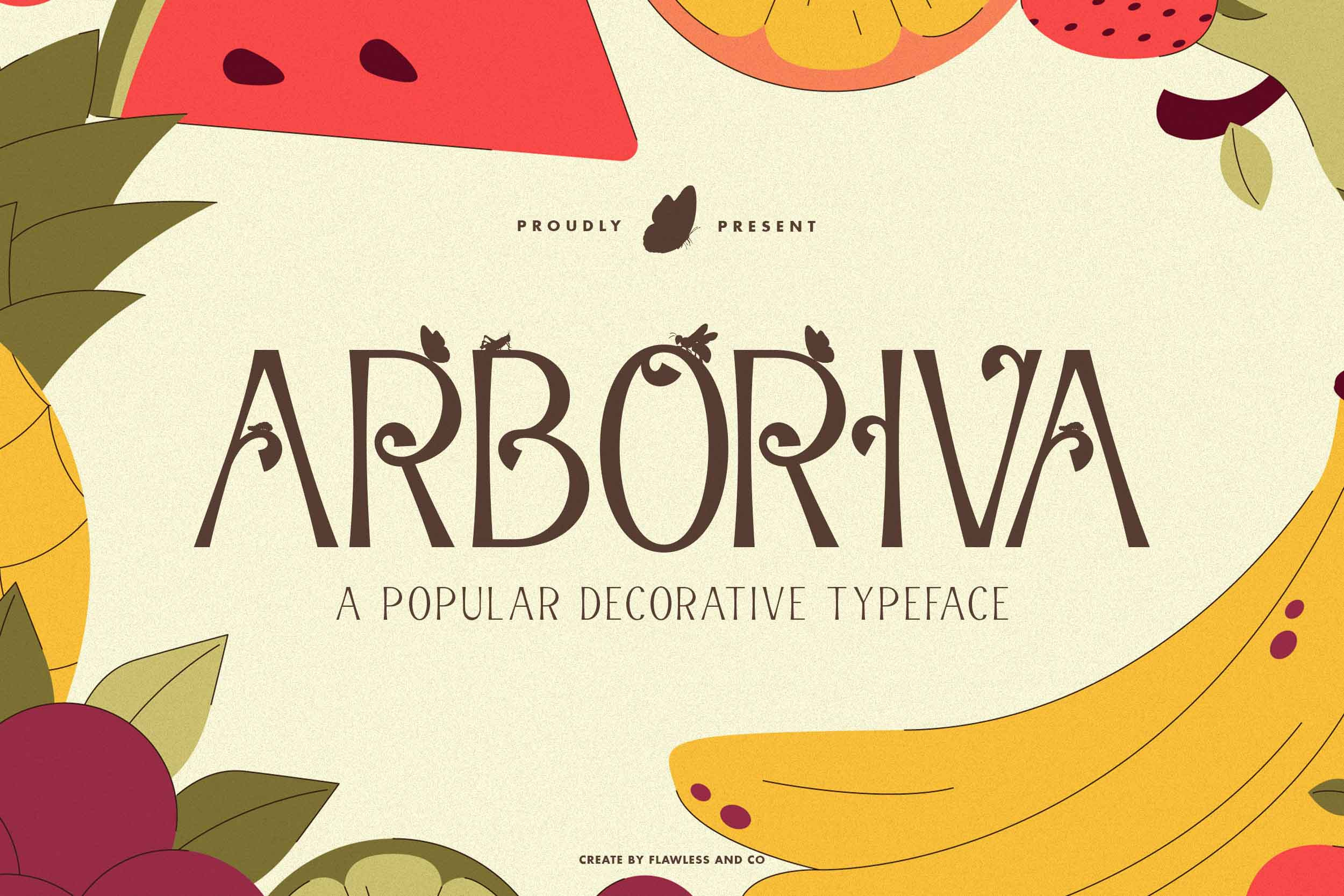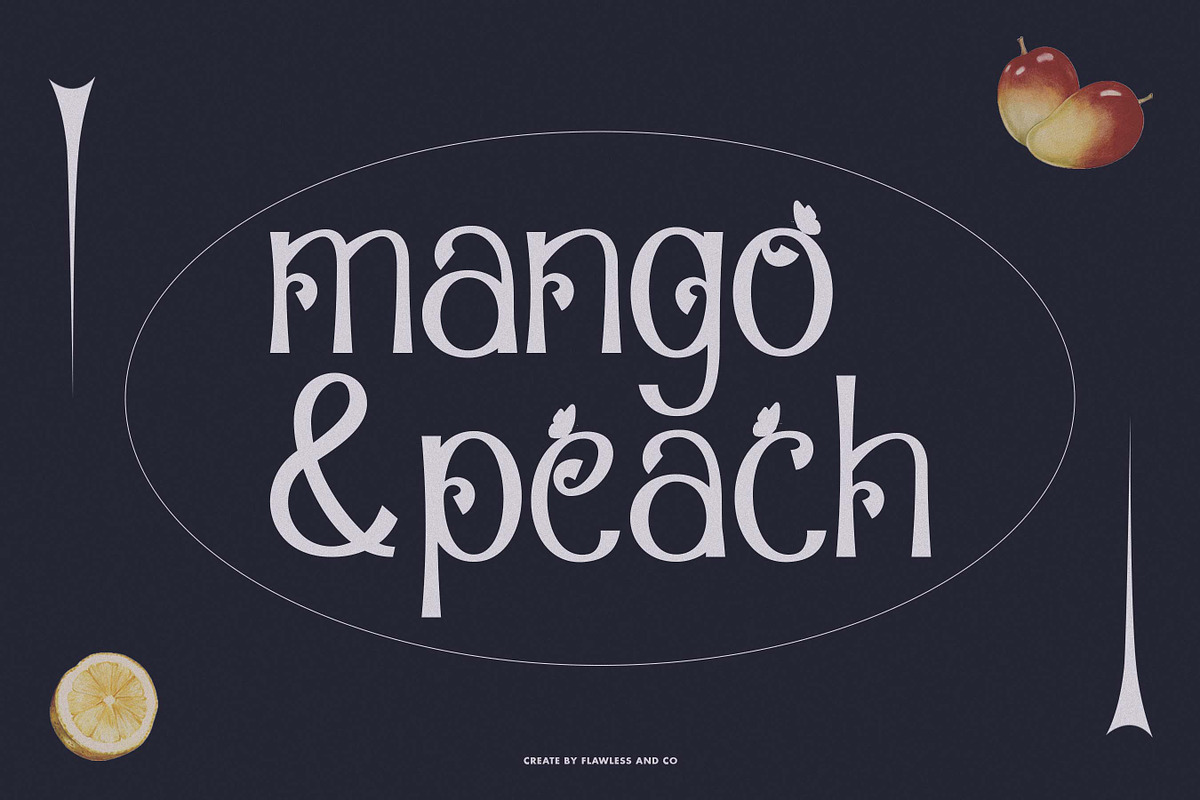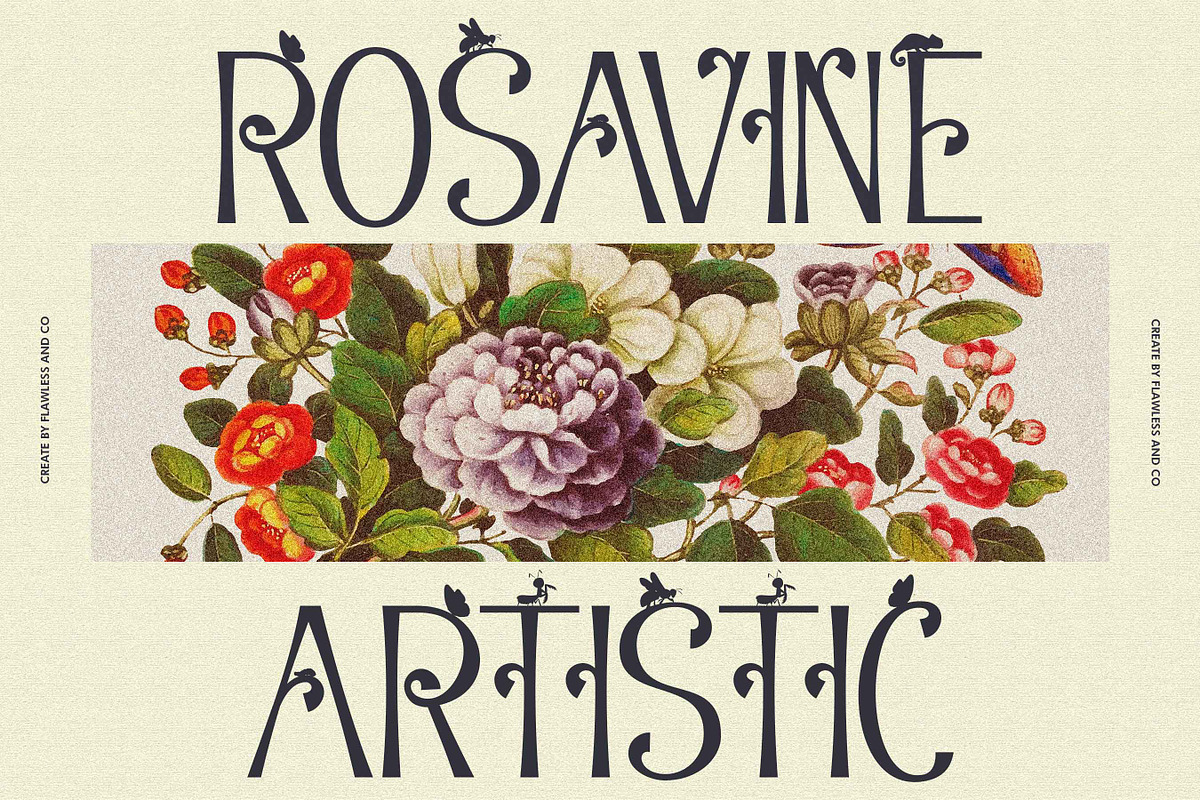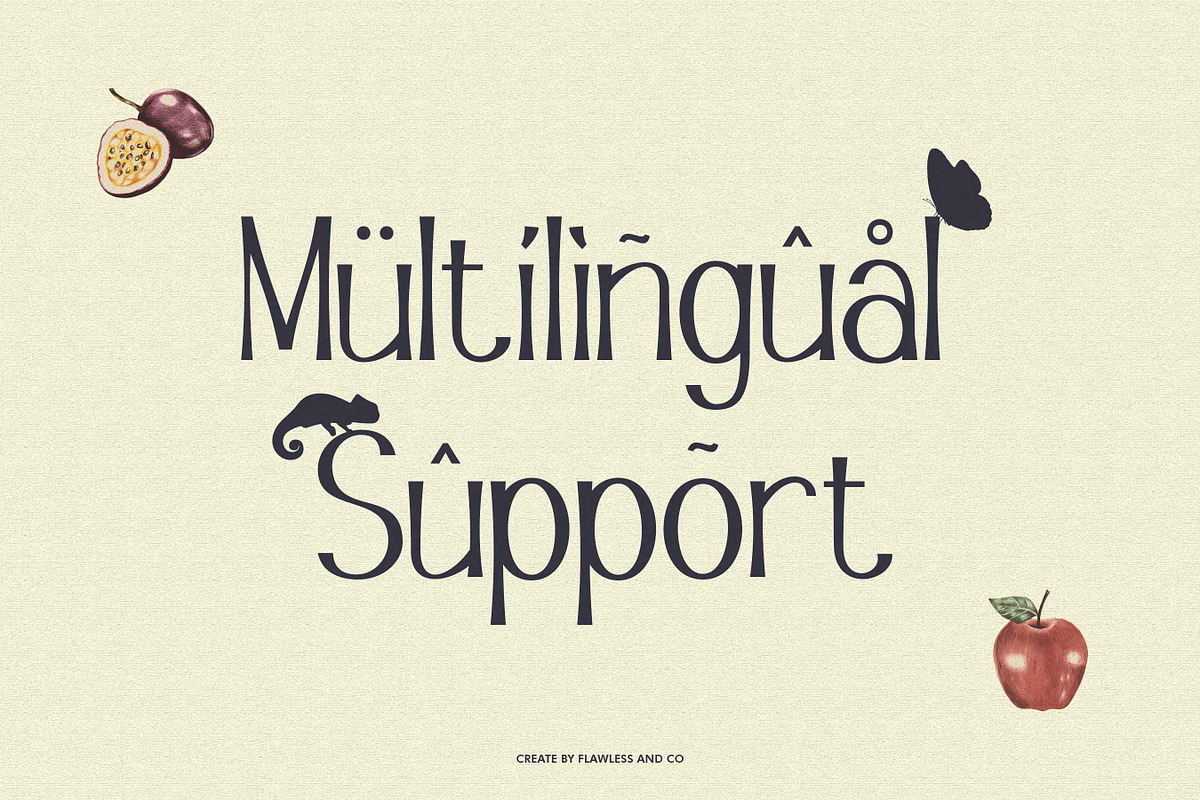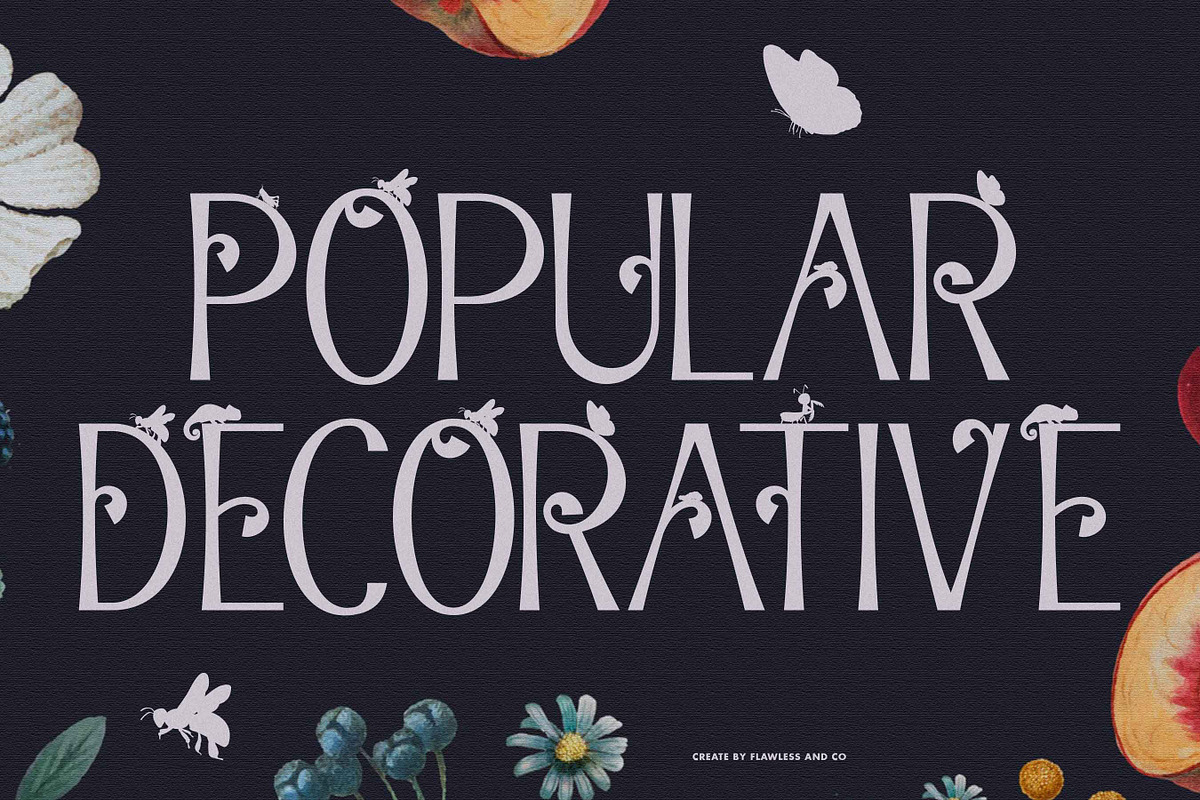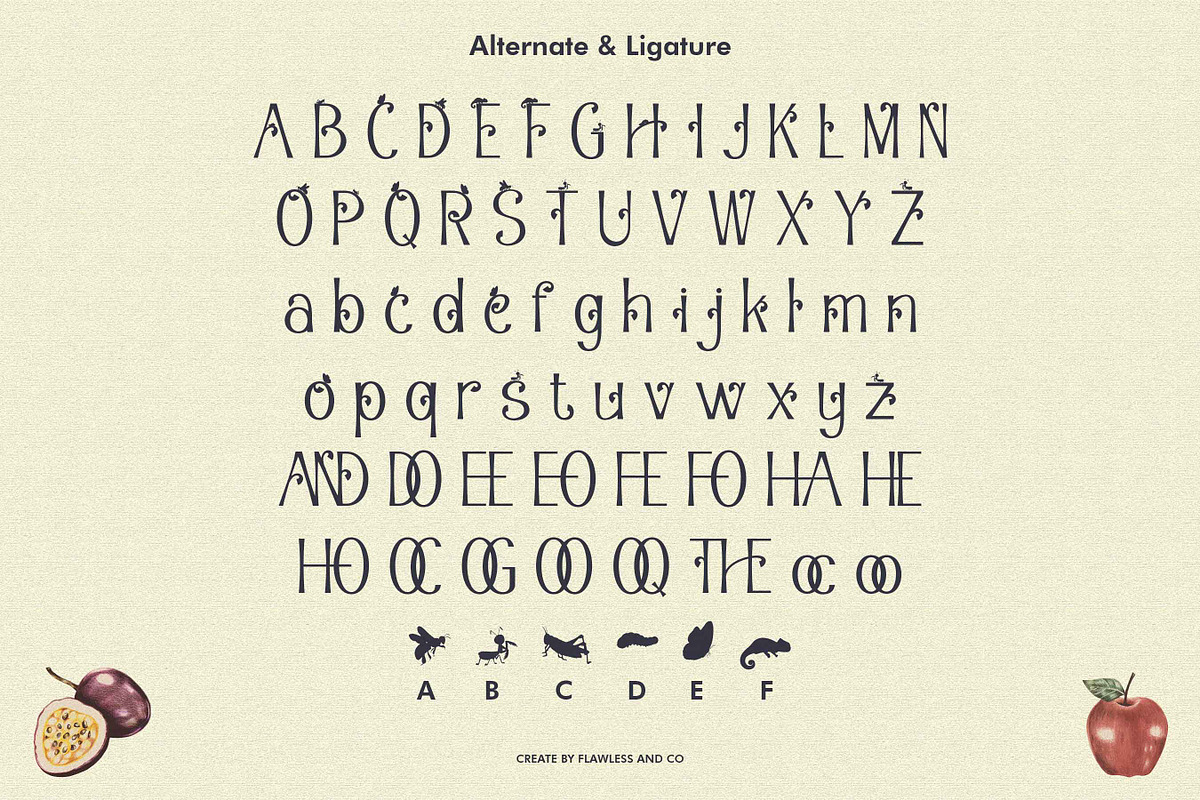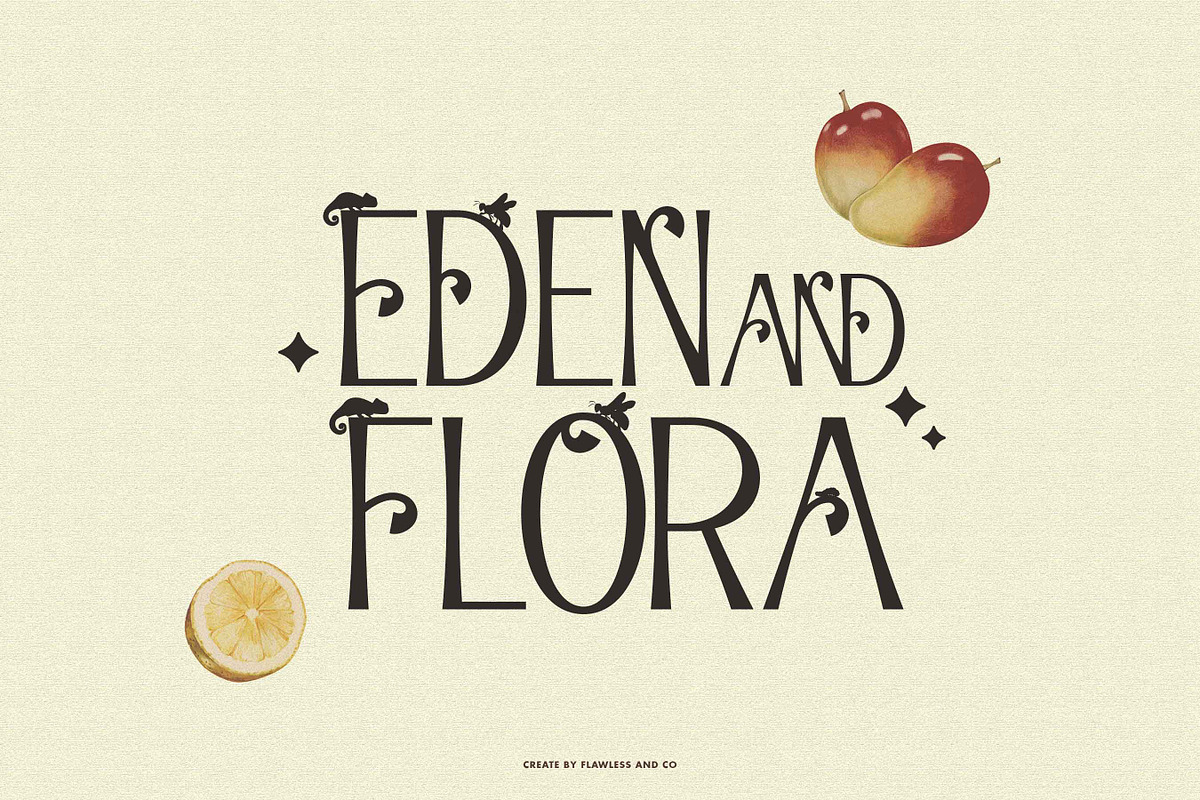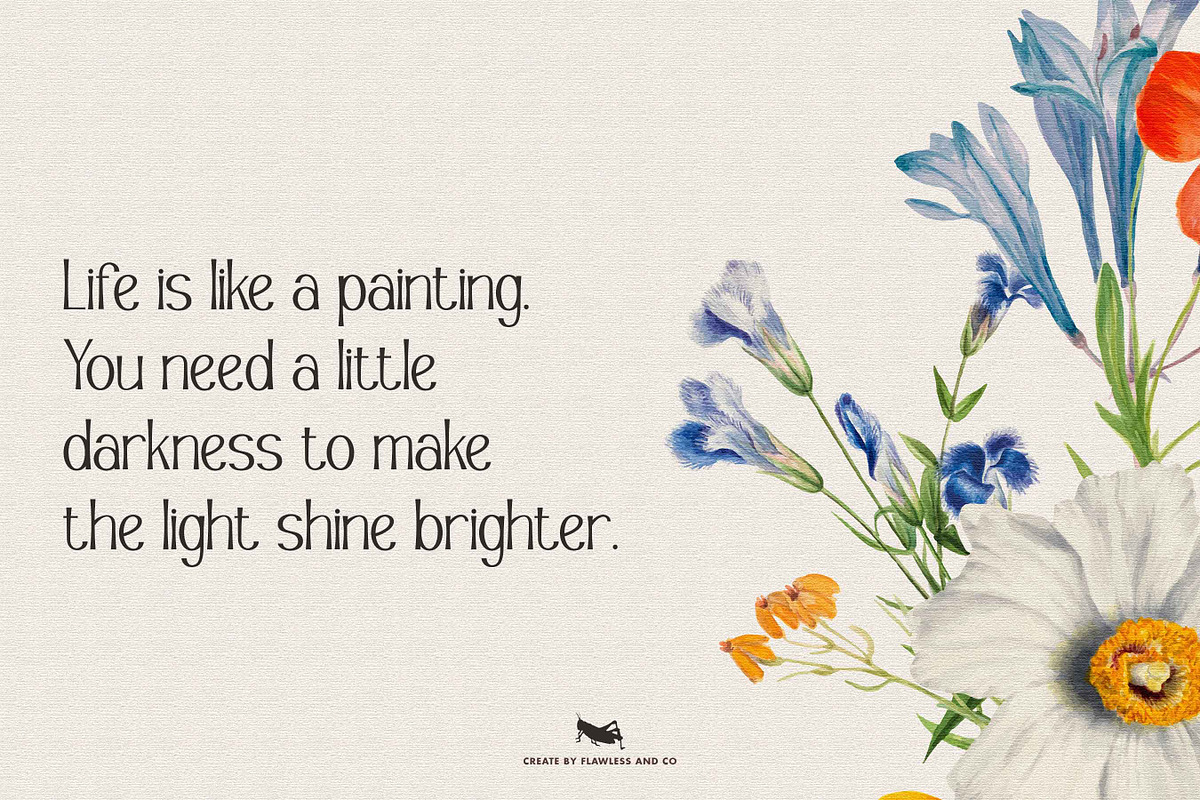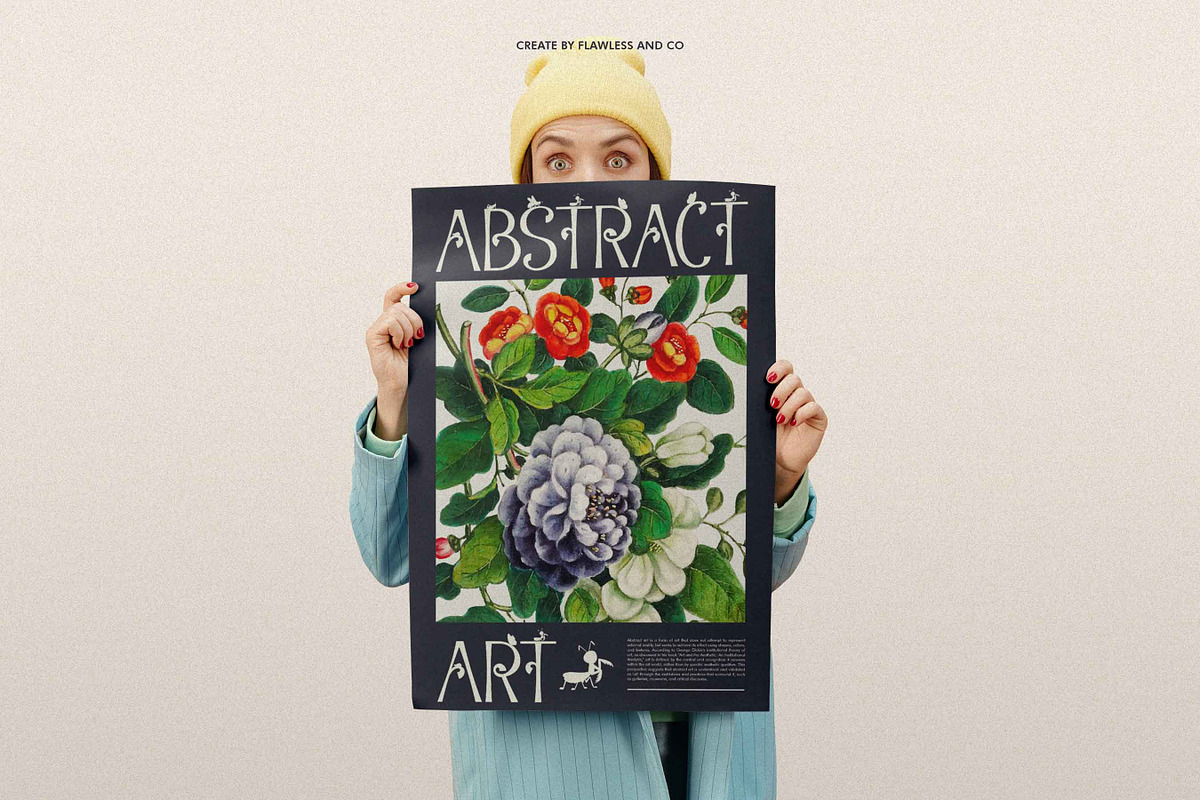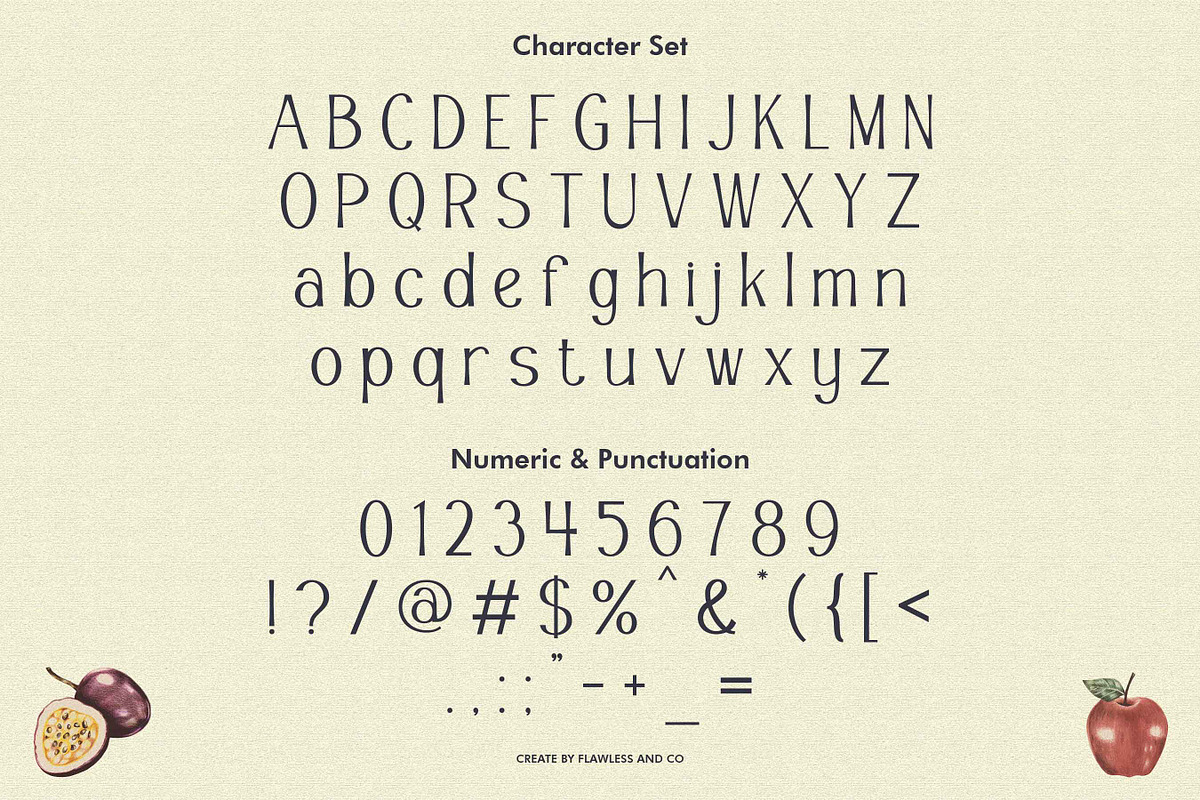
Arboriva - Decorative Font
Arboriva is a decorative display font with uniquely crafted alternates, featuring animal-inspired embellishments that add a whimsical and artistic touch. This distinctive design makes it suitable for posters, children’s book covers, nature-themed branding, creative packaging, fantasy illustrations, and eye-catching editorial designs. Arboriva brings a playful yet elegant charm to any project.